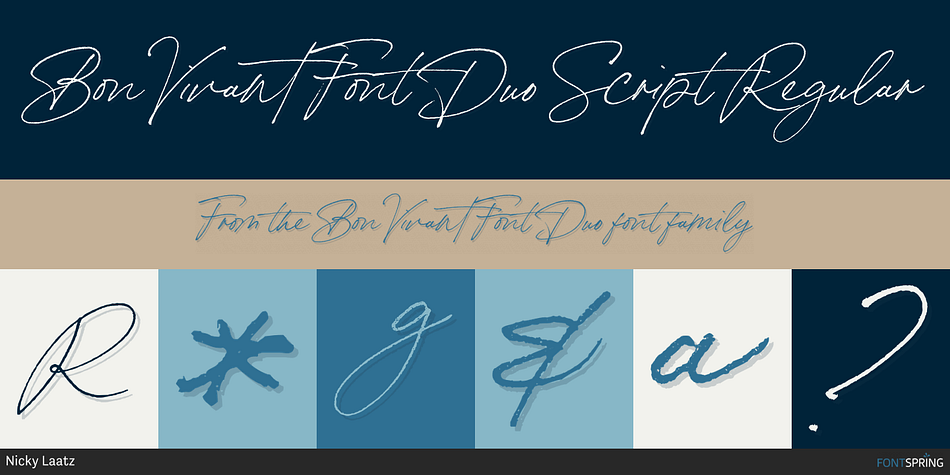
Designed by Nicky Laatz, Bon Vivant Font Duo is a multiple classification font family. This typeface has three styles and was published by Nicky Laatz.
Bon Vivant Font Duo Script Regular
If you’ve got style and love all the luxuries in life, you’re Bon Vivant! Add a touch of luxury and style to your projects too, with the new Bon Vivant Font Collection.
It’s highly recommended to turn your Opentype features on while using the script font, to make use of its best features - the multitude of OpenType ligatures. As you type, your text looks like natural handwriting, and less like a monotonous font.
The handsome serif comes in 2 weights, regular and bold. Designed to be a perfect complementary font to the script, it’s just as striking used on its own.